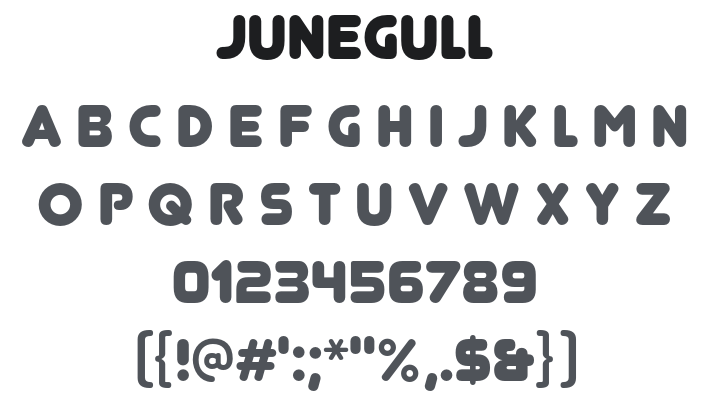
Junegull Font
About Junegull
Junegull is a rounded, all-caps sans serif that balances clean futurism with relaxed warmth. Its smooth geometry and even weight give it a friendly, modern tone suited to educational tech, packaging, or approachable branding. The companion style, Junegull Beach, adds a subtle grainy texture for a sun-worn, nostalgic feel; perfect for coastal signage, café menus, and summer promotions. Both share the same clear structure and easy legibility, shifting effortlessly between polished innovation and casual charm.